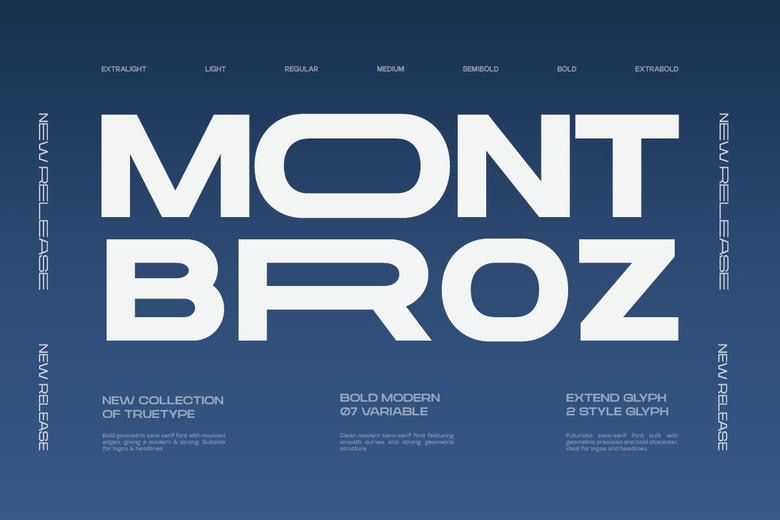
Mont Broz Font Family
Mont Broz is a dynamic and contemporary geometric sans serif display typeface that is created with high visual impression in editorial and branding systems of the time. Mont Broz is constructed in wide proportions, confident geometry and smooth rounded shapes to give the headlines, posters and large scale typography a strong, yet clean appearance.
Inspired by modern editorial layouts and a futuristic design language, TRT Mont Broz is a balance of precision and softness that produces letterforms which are solid, modern and highly legible. Its bold structure and consistent rhythm make it ideal for magazine covers, branding identities, posters, packaging and visual statements that require attention.
Designed primarily for display purposes, Mont Broz is an excellent choice for headlines, titles and visual hierarchy applications. The font works well when used in print and digital settings with its clarity and impact even in a light or dark background.
With multiple weights and variable font support, TRT Mont Broz can provide flexibility for designers working in editorial design, branding systems, motion graphics as well as modern graphic compositions. The typeface conveys a bold, modern and confident voice – perfect for contemporary visual storytelling.